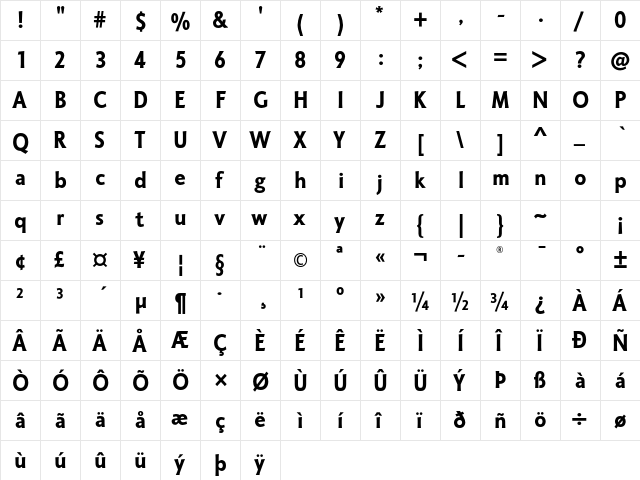
Octone ITC Std Bold
| Designer | Eric de Berranger |
Design Context for Octone ITC Std Typeface
Octone ITC Std offers clean, dependable letterforms without strong stylistic allegiance, making it a practical choice for designers who need flexibility. The heavy weight commands attention and anchors typographic hierarchies.